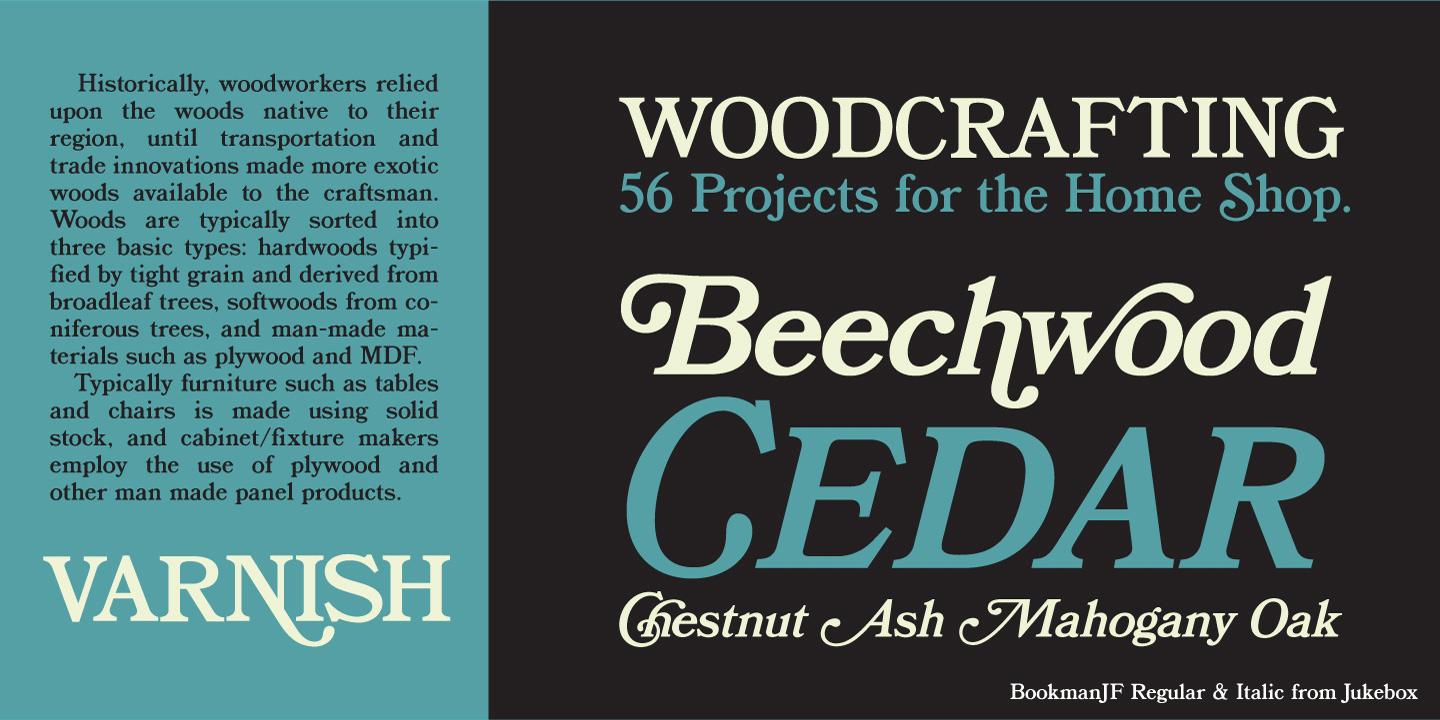
Bookman JF Pro Font excels in book publishing, academic journals, literary magazines, newspaper layouts, professional reports, scholarly publications, legal documents, and educational textbooks. This refined serif typeface brings classical readability and editorial sophistication to any project requiring exceptional legibility and professional typographic standards.
What makes Bookman JF Pro Font exciting is its perfect optimization for extended reading and professional publishing applications. The font features generous x-height, well-balanced letter spacing, and carefully crafted serif details that enhance readability at any size. Its robust character design ensures excellent performance in both print and digital environments, making it ideal for publishers who demand superior legibility without sacrificing typographic elegance. The typeface's authoritative presence conveys credibility and scholarly excellence.
The Bookman JF Pro Font family includes Regular, Bold, Italic, Bold Italic, Light, and Medium weights, providing comprehensive typographic hierarchy for complex publications. The family offers extensive language support, advanced OpenType features, small caps, old-style numerals, and professional ligatures that enhance editorial quality. These variants ensure complete flexibility for sophisticated publishing projects requiring multiple text weights and styles.
Whether you're designing books, academic publications, or professional documents, Bookman JF Pro Font Free Download delivers the editorial excellence your projects demand. Its combination of superior readability and classical elegance makes it perfect for communicating knowledge, authority, and professional credibility with genuine publishing-quality typography and timeless editorial sophistication.